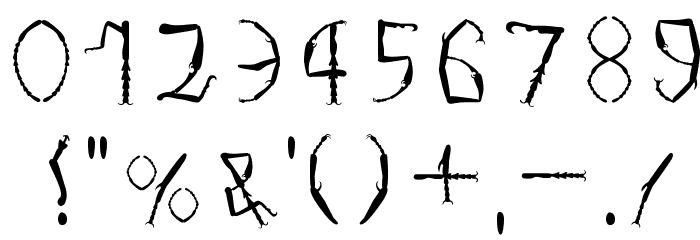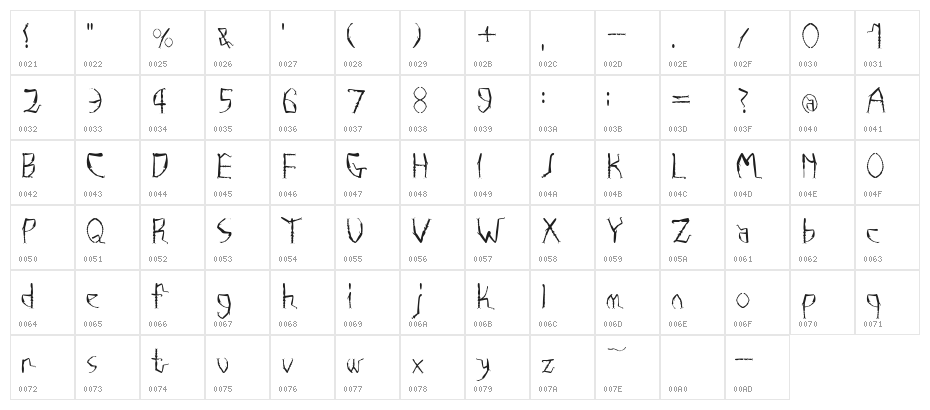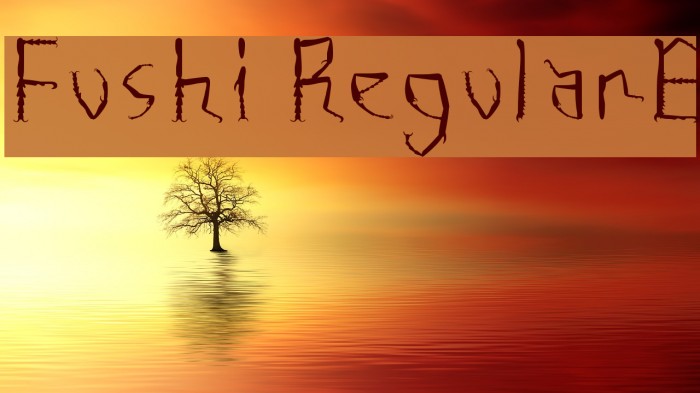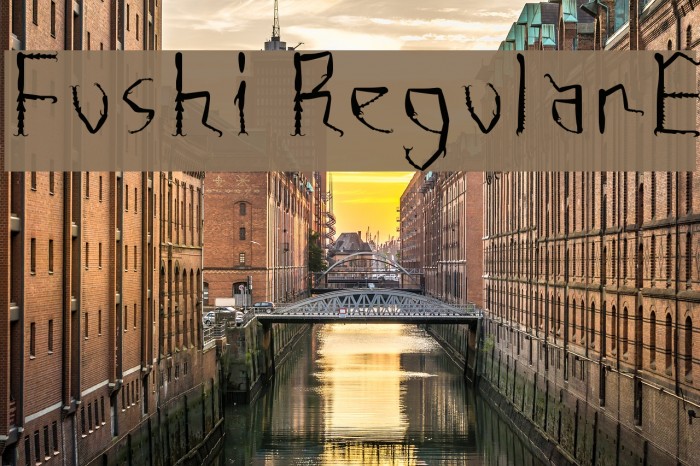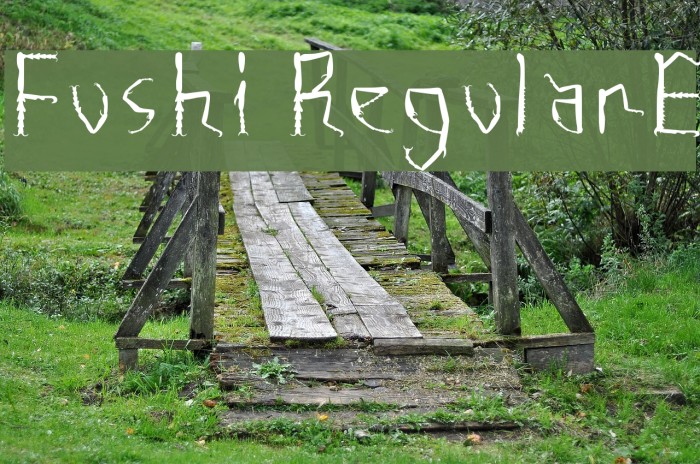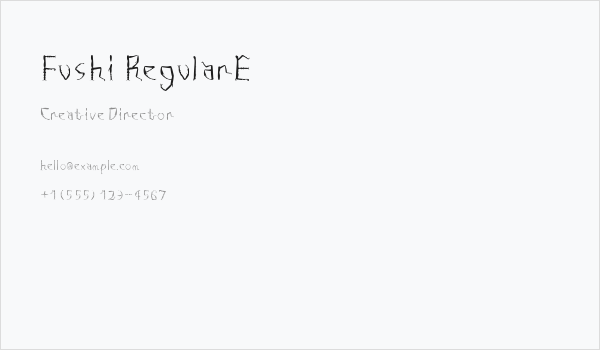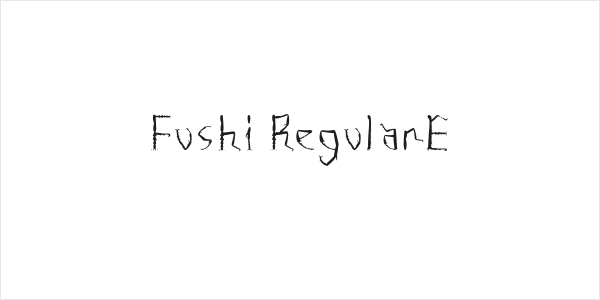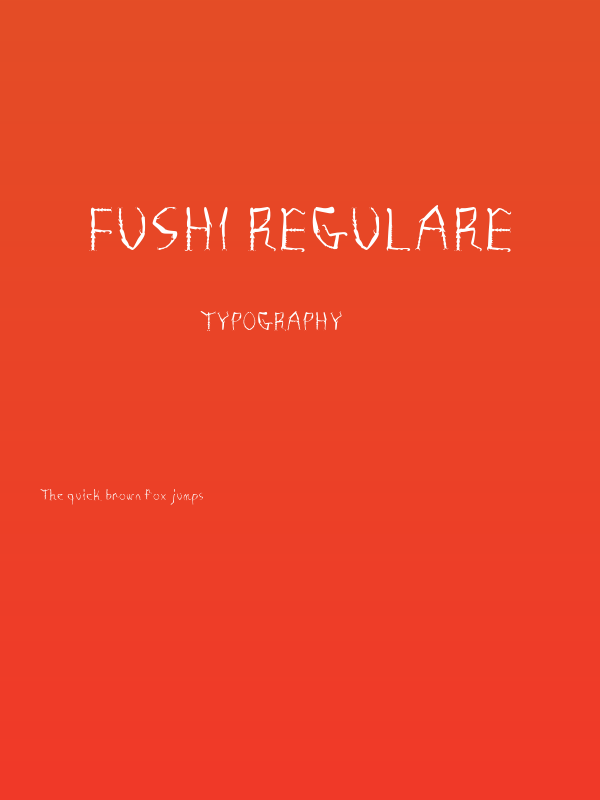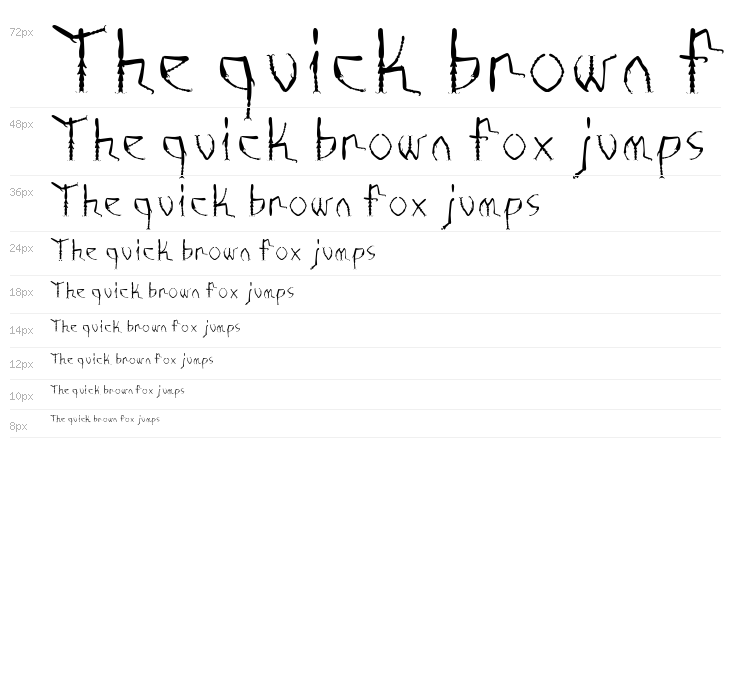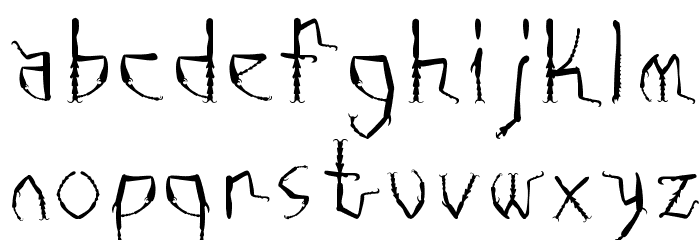
Fushi RegularE Font
Fushi RegularE Description
This font features a unique, organic design with irregular, jagged edges that give it a hand-drawn appearance. The characters are unevenly shaped, with varying stroke thicknesses that create a dynamic and somewhat chaotic look. The uppercase and lowercase letters maintain a consistent style, with a rough texture that suggests a natural, almost primitive aesthetic. The numerals and special characters follow the same design principles, adding to the font's cohesive yet unconventional appearance. This font is ideal for projects that require a raw, edgy feel, such as horror-themed designs or artistic, avant-garde presentations.
| Use Case | Headlines, Artistic projects, Themed designs |
| Proposed Projects | Ideal for horror-themed designs, artistic projects, and avant-garde presentations. |